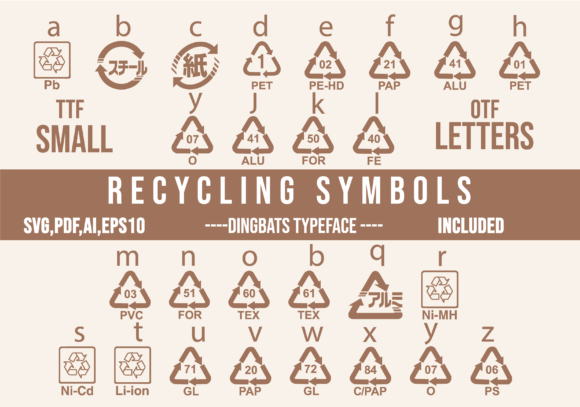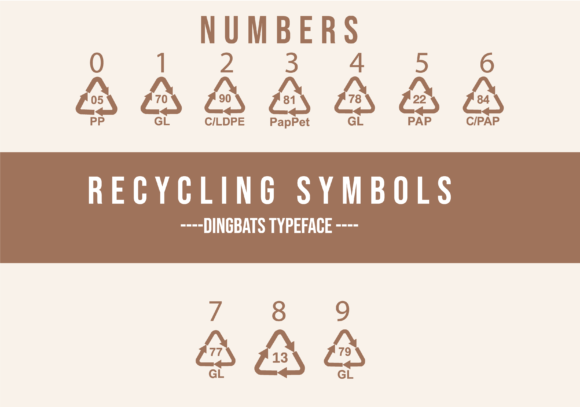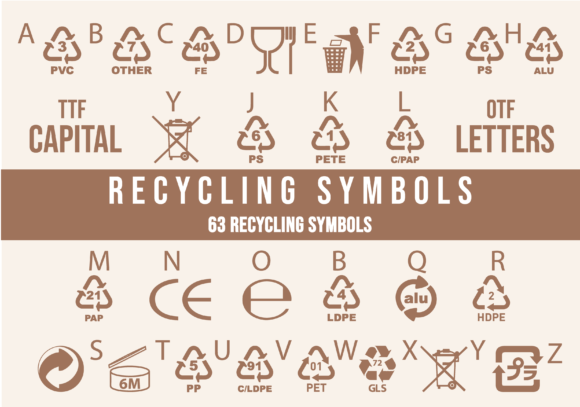
Packaging Recycling Symbols – Codes Font
About Packaging Recycling Symbols – Codes Font
“Packaging Recycling Symbols” is a cool and useful dingbats font that can be a valuable addition to your fonts’ library. With its collection of recycling symbols, this font is specifically designed to promote sustainability and environmental awareness in your designs.
In today’s world, where environmental concerns are increasingly important, incorporating recycling symbols into your designs can communicate a strong message about sustainability and responsible consumption. These symbols represent different types of recyclable materials and can help raise awareness about the importance of recycling and proper waste management.
By using the “Packaging Recycling Symbols” font, you have a convenient and accessible way to incorporate these symbols into your designs. Instead of searching for individual recycling icons or creating them from scratch, you can simply type the corresponding letters or numbers to generate the desired symbol.
These symbols can be used in various design contexts, especially in projects related to packaging, environmental campaigns, educational materials, or any content aimed at promoting sustainable practices. Whether you’re designing product labels, informational brochures, websites, or social media graphics, the “Packaging Recycling Symbols” font offers a comprehensive set of symbols to choose from.
Each symbol within the font represents a specific recyclable material or recycling-related concept, such as glass, paper, plastic, compost, or recycling arrows. You can easily combine multiple symbols or use them individually to create visually appealing compositions that convey a clear message about recycling and environmental consciousness.
Additionally, the “Packaging Recycling Symbols” font provides consistency and coherence to your designs, as all the symbols share a unified style and visual language. This ensures that your message about recycling and sustainability is communicated effectively and professionally across different design elements.
With the versatility of this dingbats font, you can create impactful visuals that inspire positive change and encourage responsible environmental practices. Whether you’re designing for print or digital media, the “Packaging Recycling Symbols” font empowers you to incorporate these symbols seamlessly into your designs, saving you time and effort in the process.